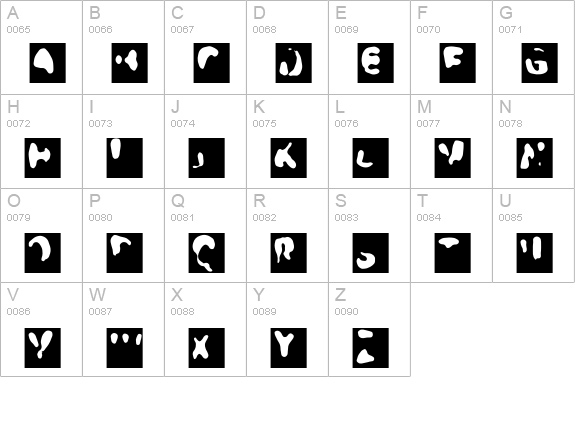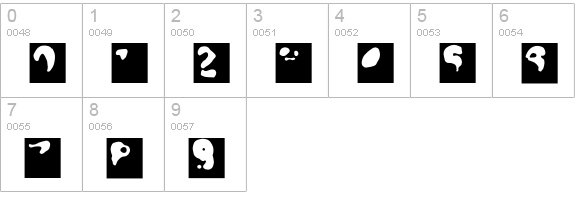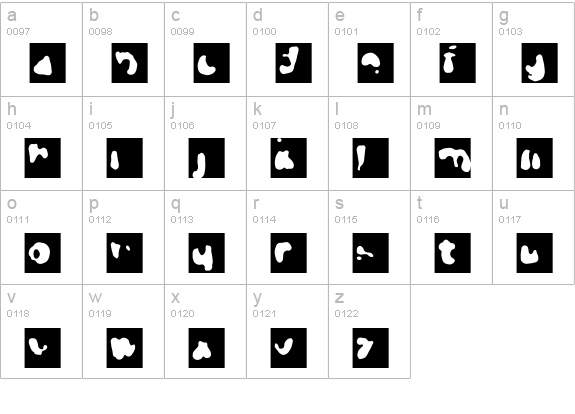
Introducing Crash-Cameo font, a striking and modern typeface that is sure to make a bold statement in any design project. With its unique combination of sharp edges and sleek curves, Crash-Cameo exudes a sense of dynamic energy and creativity. This versatile font is perfect for a wide range of applications, from branding and advertising to packaging and web design. What sets Crash-Cameo apart is its seamless integration of classic elegance with a contemporary twist, making it a standout choice for designers looking to add a touch of sophistication to their work. Whether you're creating a logo, poster, or website, Crash-Cameo will elevate your design to the next level. And the best part? Crash-Cameo is available for free download at FontsMarket.com, making it easily accessible to designers of all levels. So why wait? Give your projects the edge they deserve with Crash-Cameo font today!